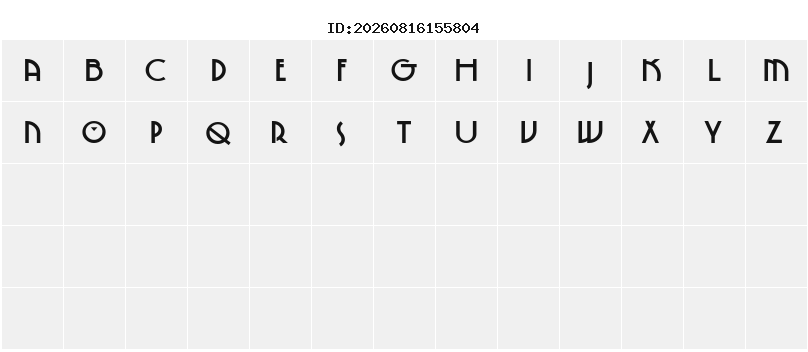
SpringGarden-Bo Preview
About SpringGarden-Bo.ttf
SpringGarden-Bo.ttf is a modern, elegant sans-serif font designed for ultimate readability and visual harmony. Perfect for branding, headlines, web design, and print materials.